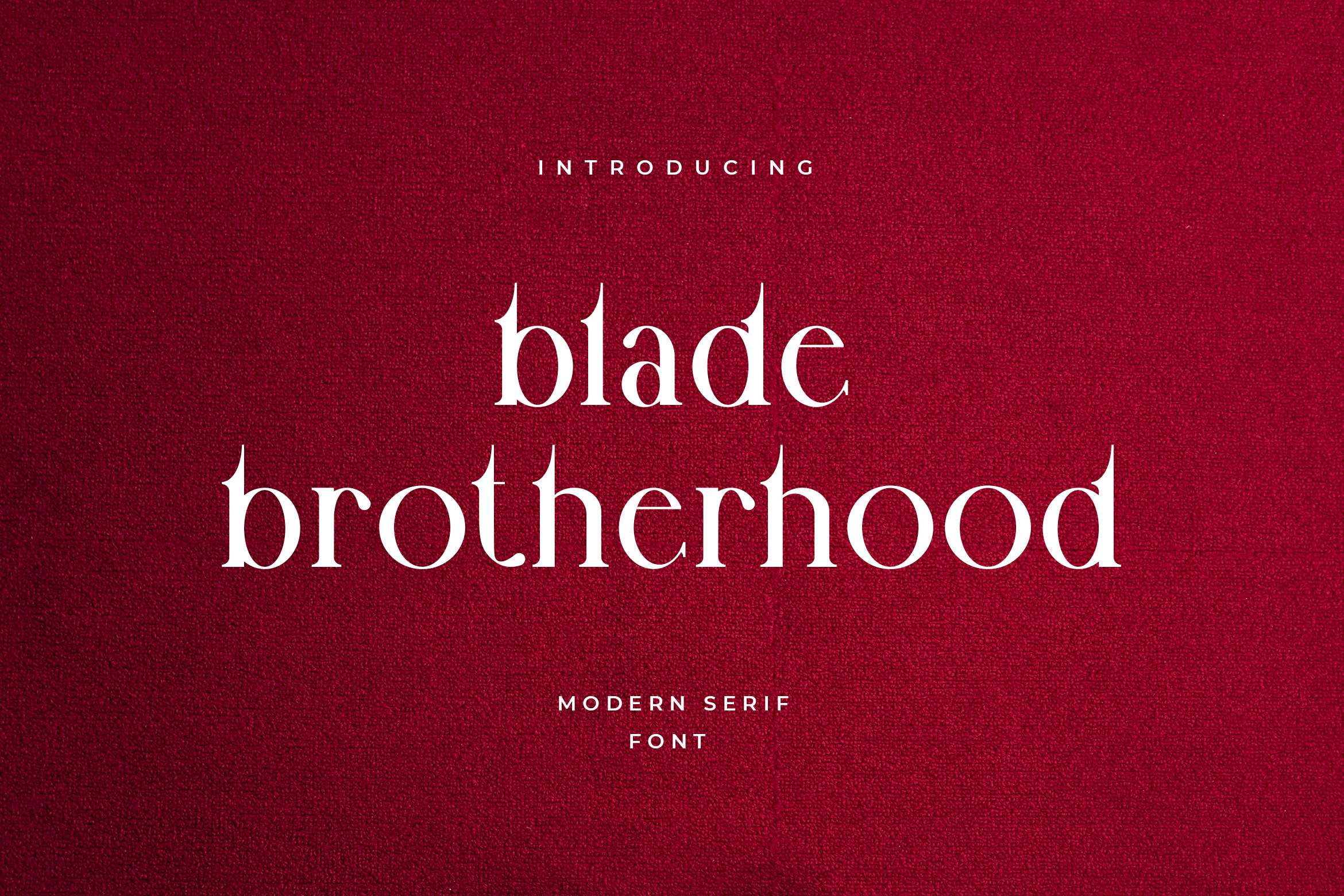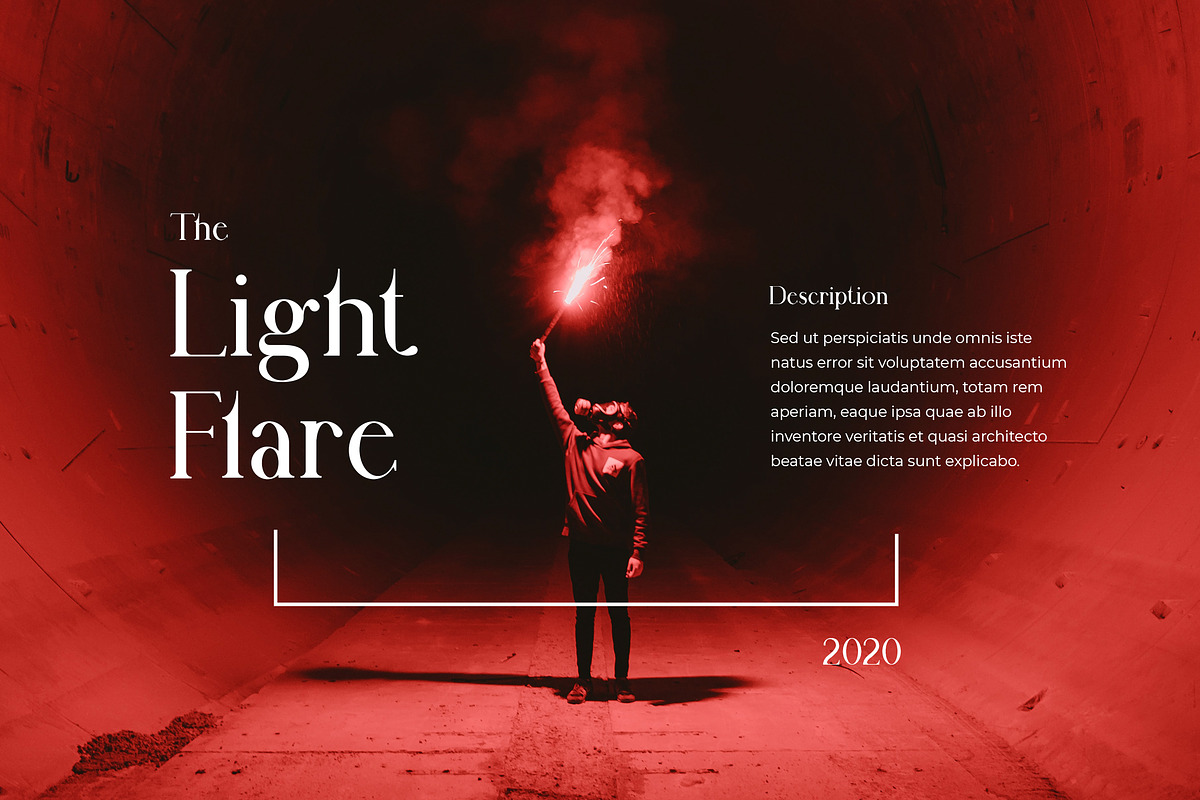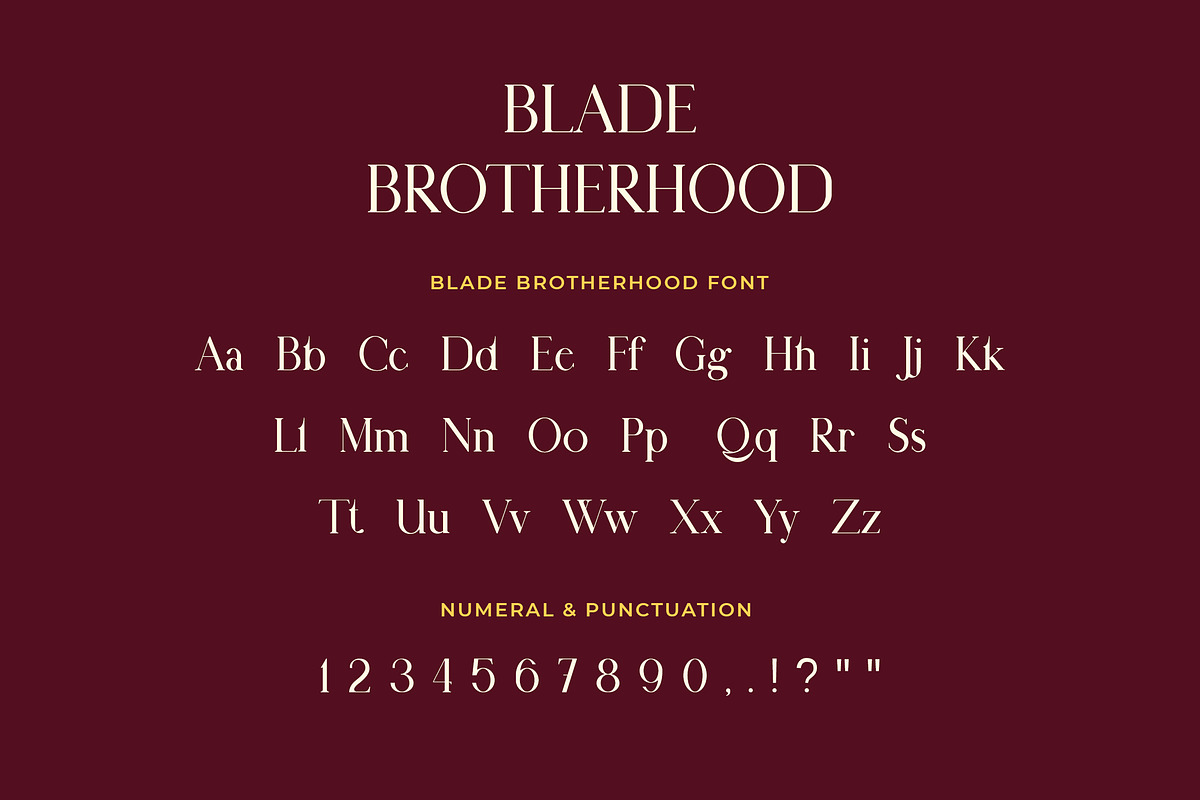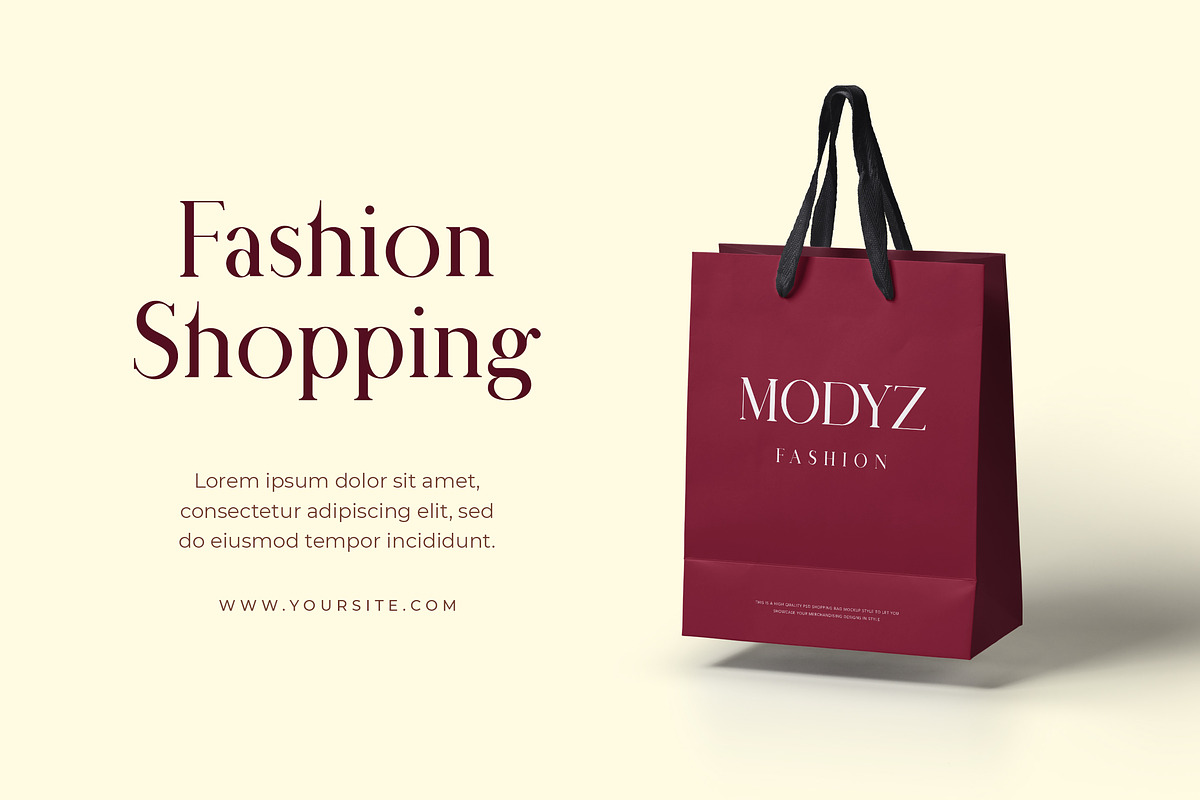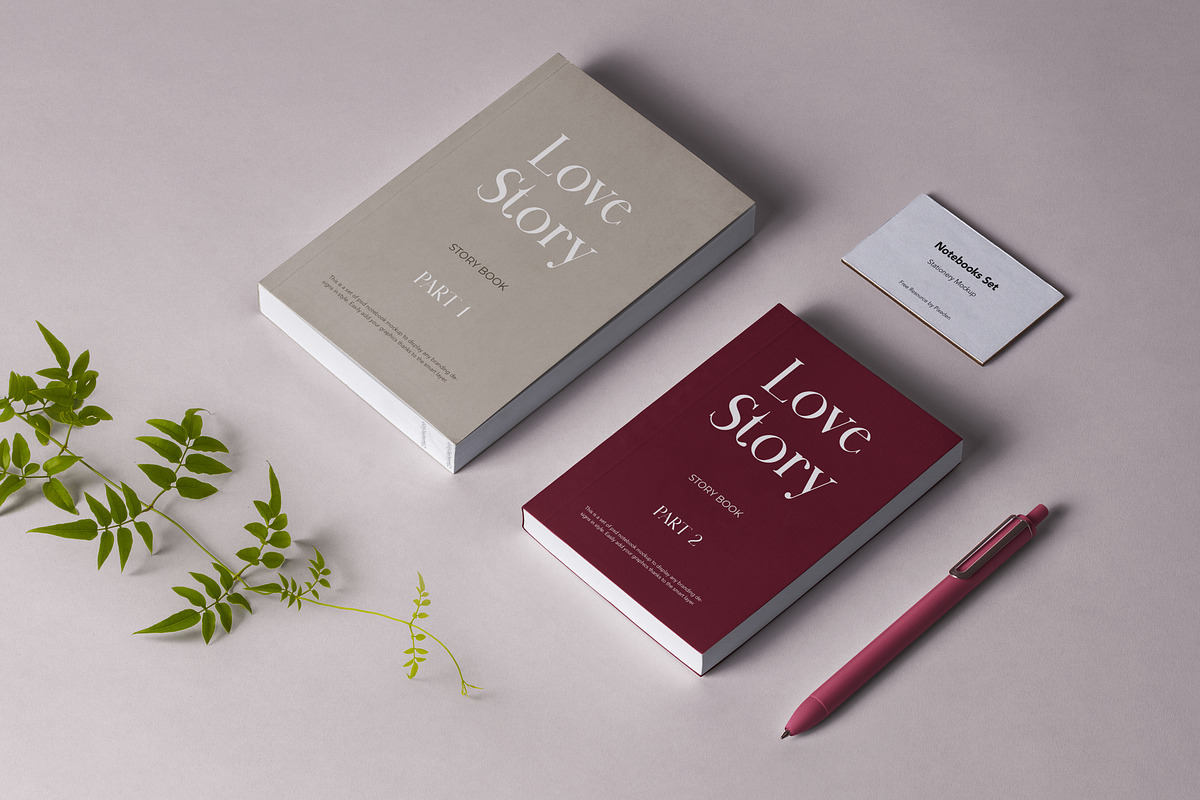
Blade Brotherhood Classic Serif Font
Blade Brotherhood is unique Classic Serif Font with a personal charm. With quick dry strokes and also has vintage display font. Can make it easier to convey the message in your design. Use for awesome display, labeling, clothing, movie sceen, poster, movie title, gigs, album covers, logos, and much more. It's also could be good for both fun and semi-formal text.